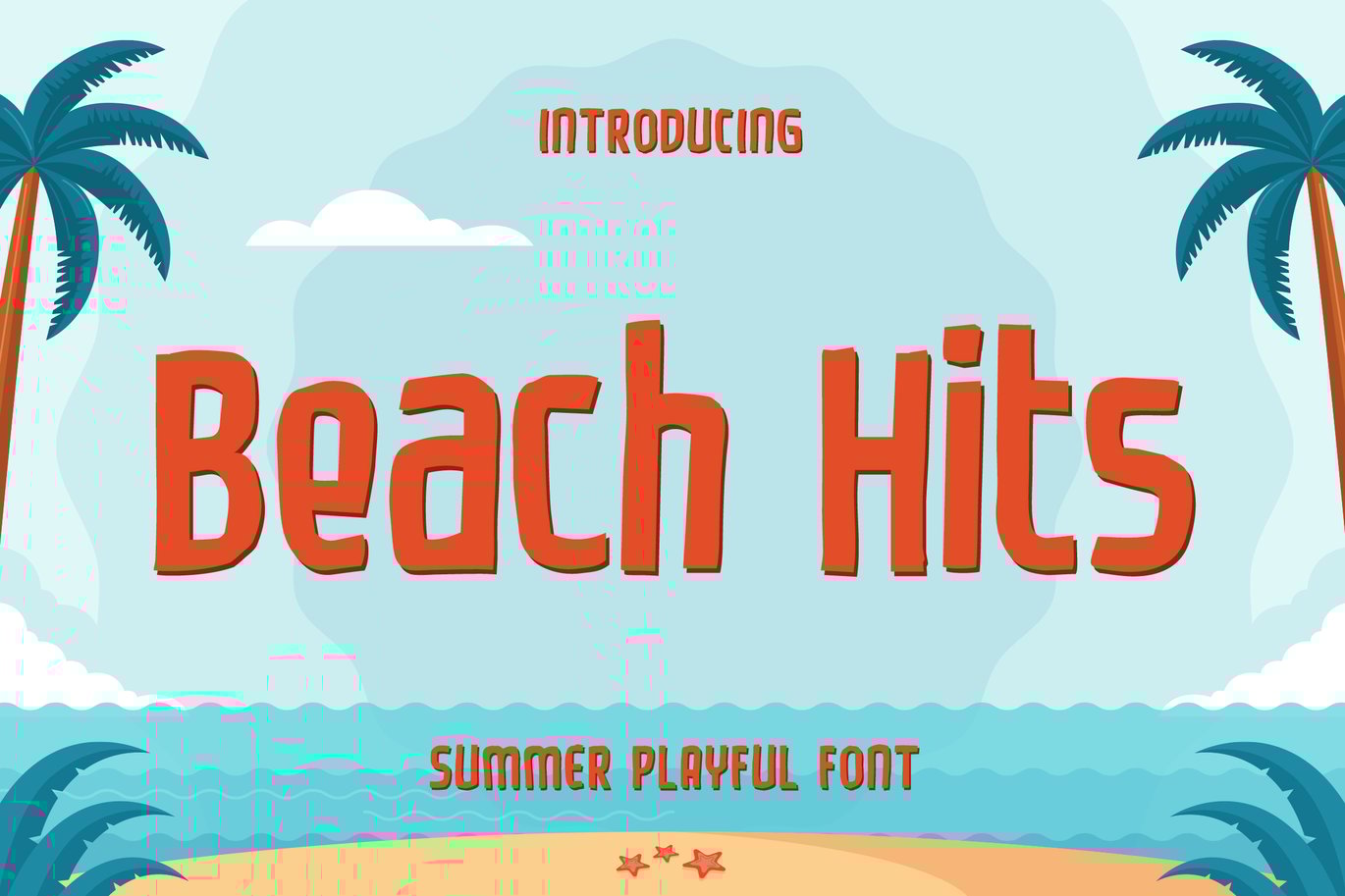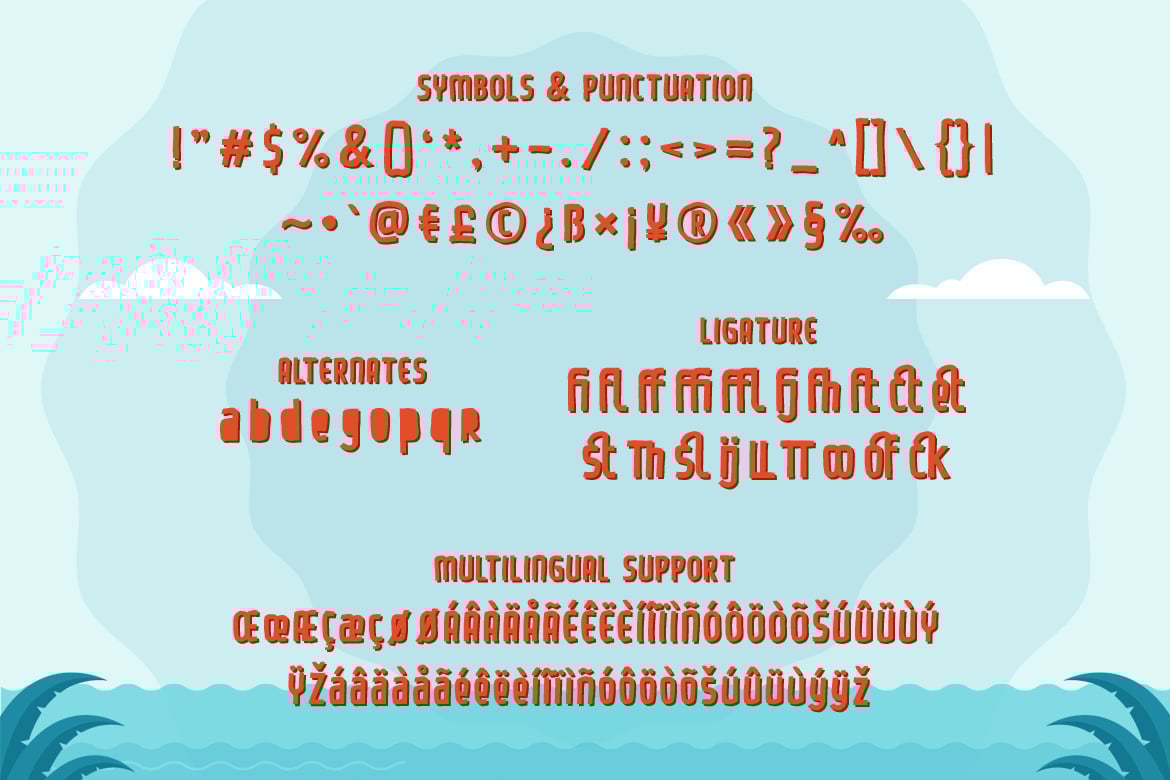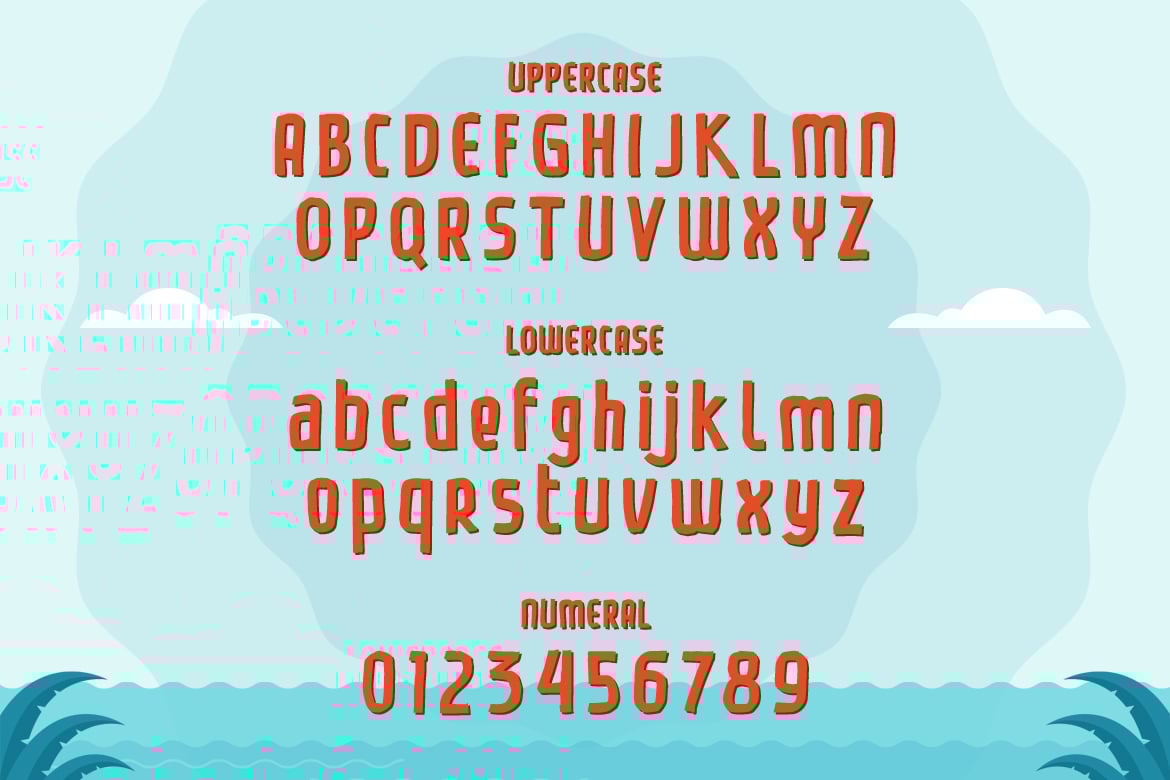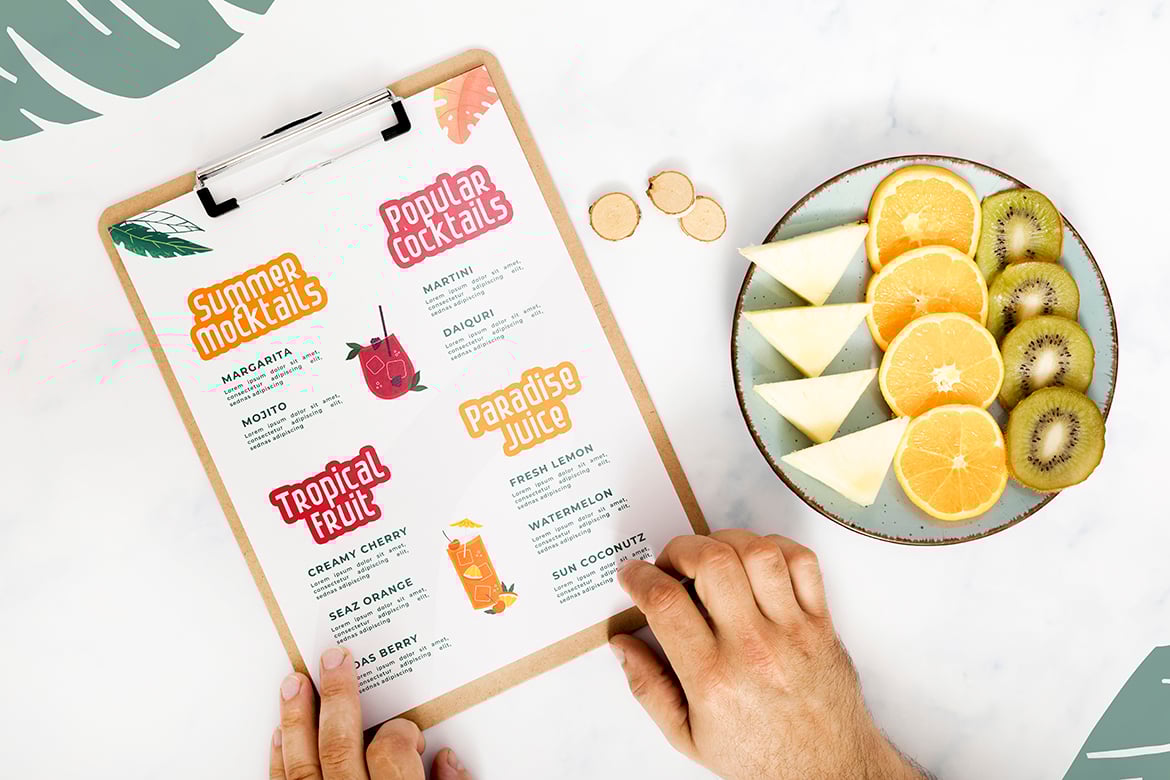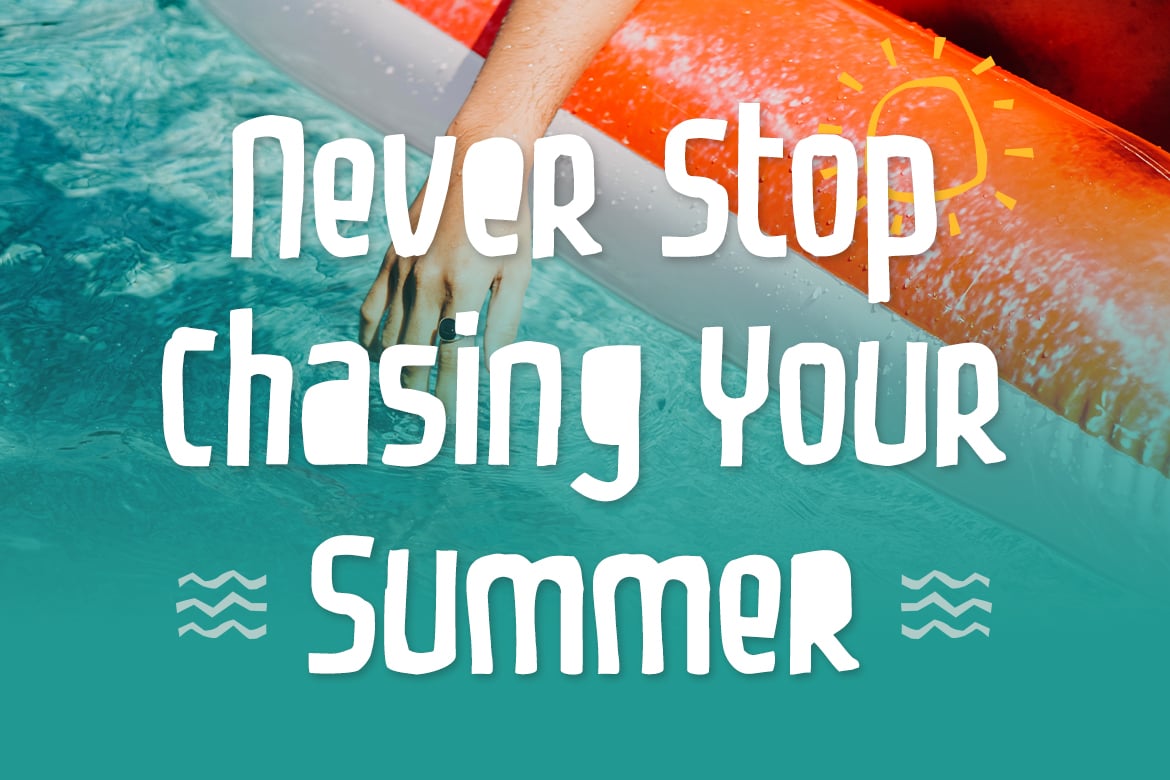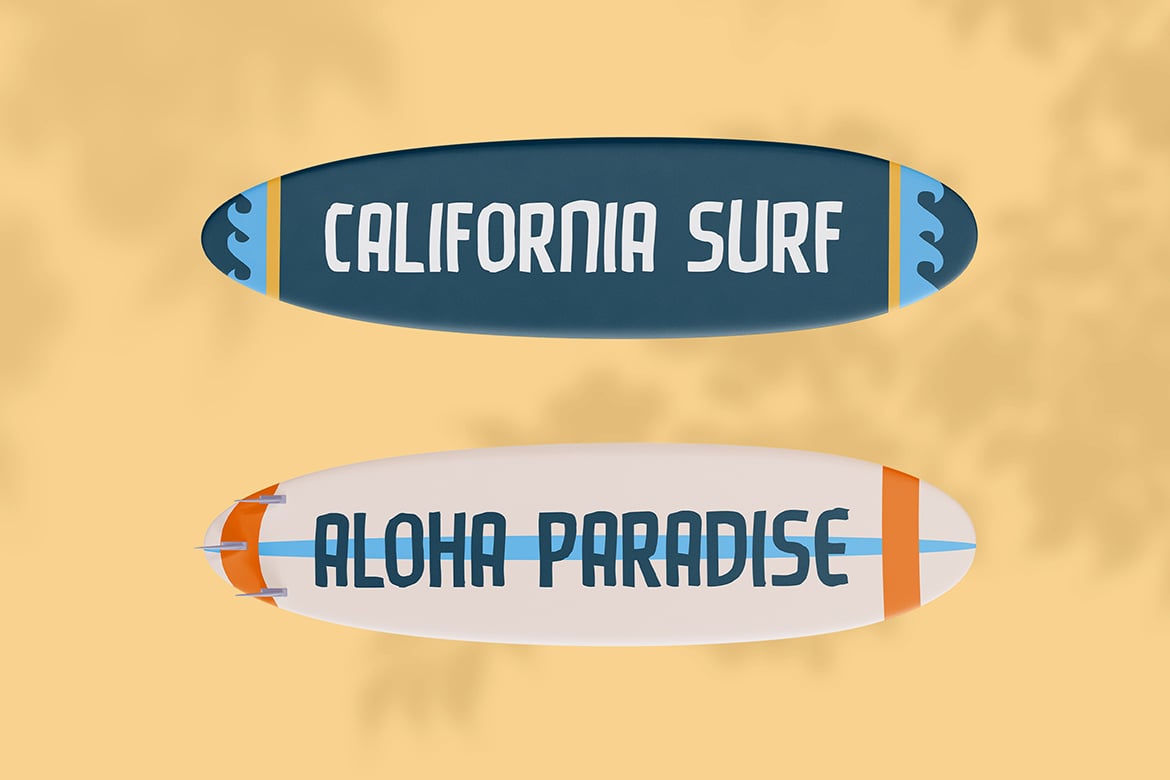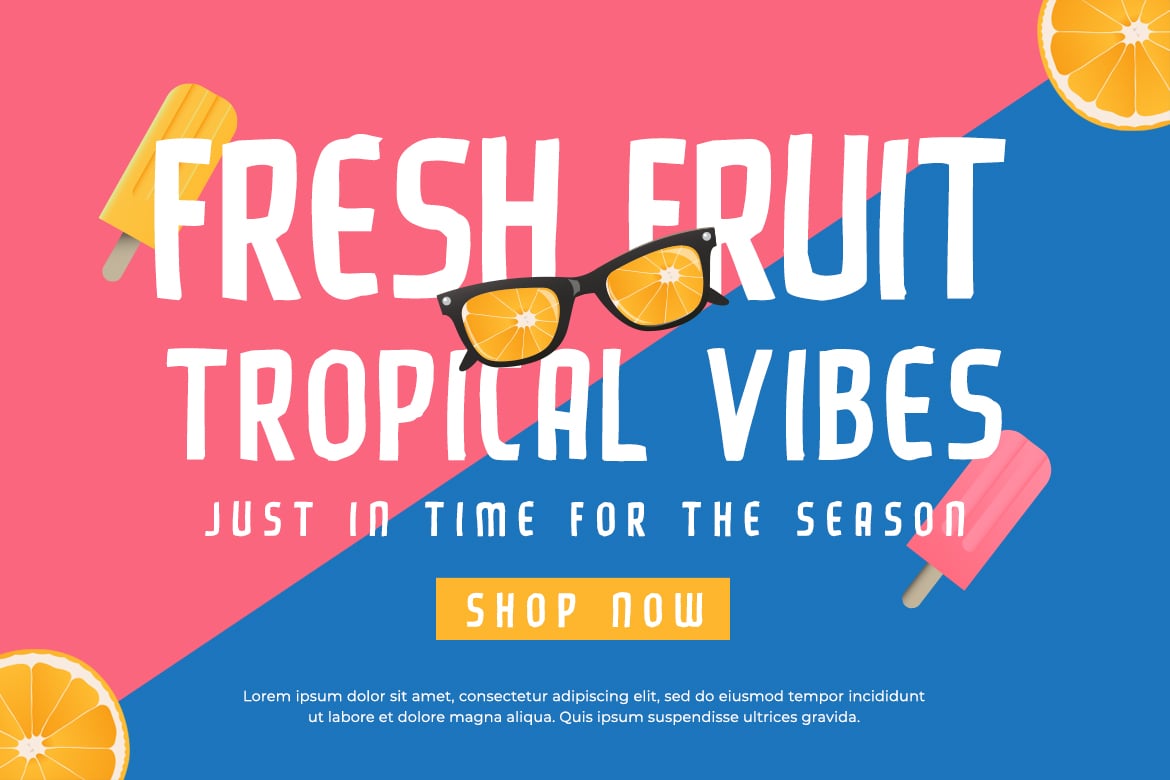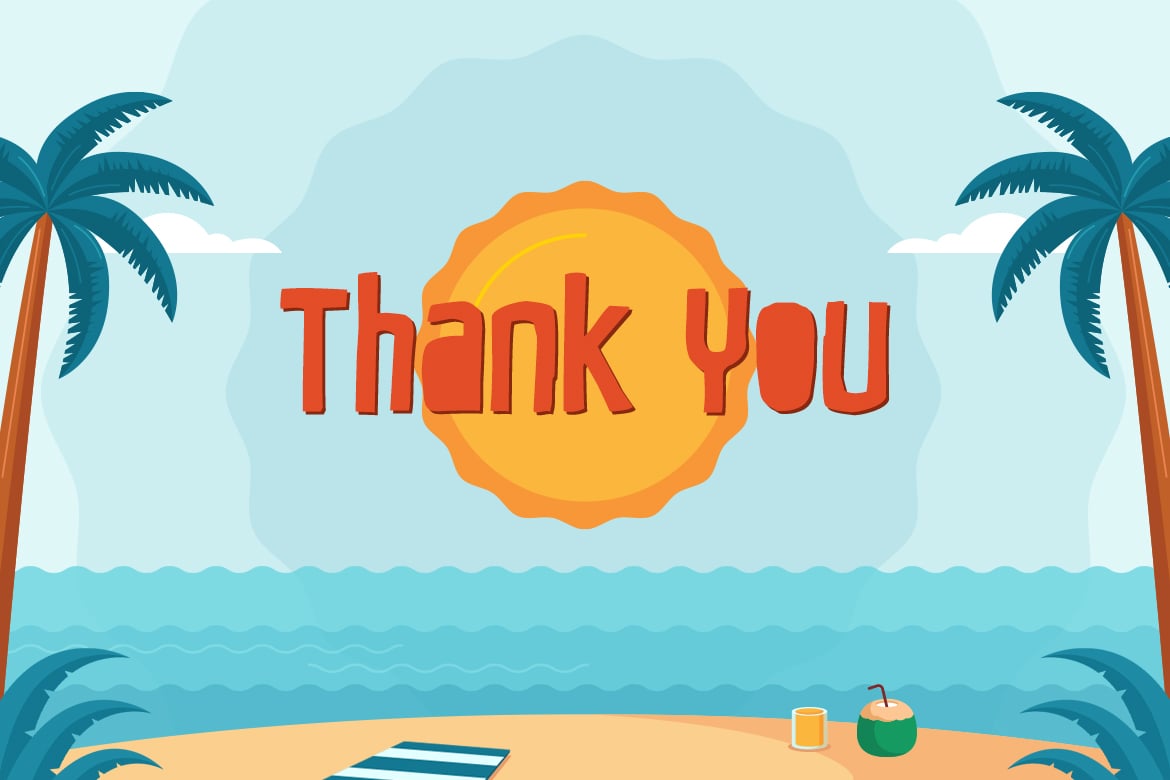
Beach Hits – Summer Playful Font
Beach Hits is a playful tropical font.
It can be used for various purposes such as quotes, descriptions, mug, invitation, letterhead, signage, labels, news, posters, badges and so much more.